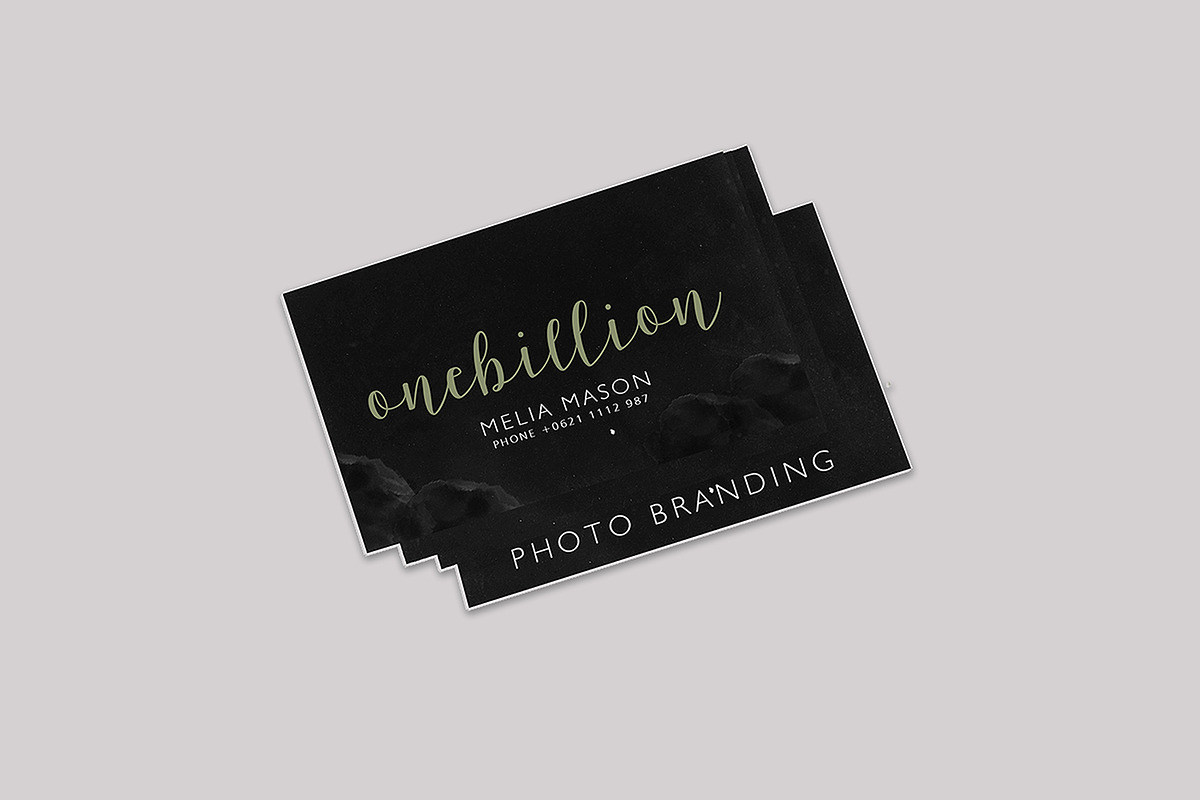
Latosha Script
Hi ... Introducing the latest styles Latosha Script Regular & Bold with this type of hand scratches modern self contained 429 Glyph for each font, I hope you are interested in two fonts in one price, if you want to use for your work this font can be used to easily and simply because there are a lot of features in it contains a complete set letters lower and uppercase letters, assorted punctuation, numbers, and multilingual support. font also contains several ligatures and alternative style Stylistic Set those of you who have software that is able to work OpenType (Photoshop / Illustrator / InDesign).
Latosha This script can be used to for market design developed at this time, this font has a model Trendy, natural and gentle, with a font, you can take advantage of the opportunity at any time one wonderful way to highlight the celebration of the feast of your best, because this font will be a driving force for purposes such as wedding invitations, party, graduation, birthday, gathering, etc.